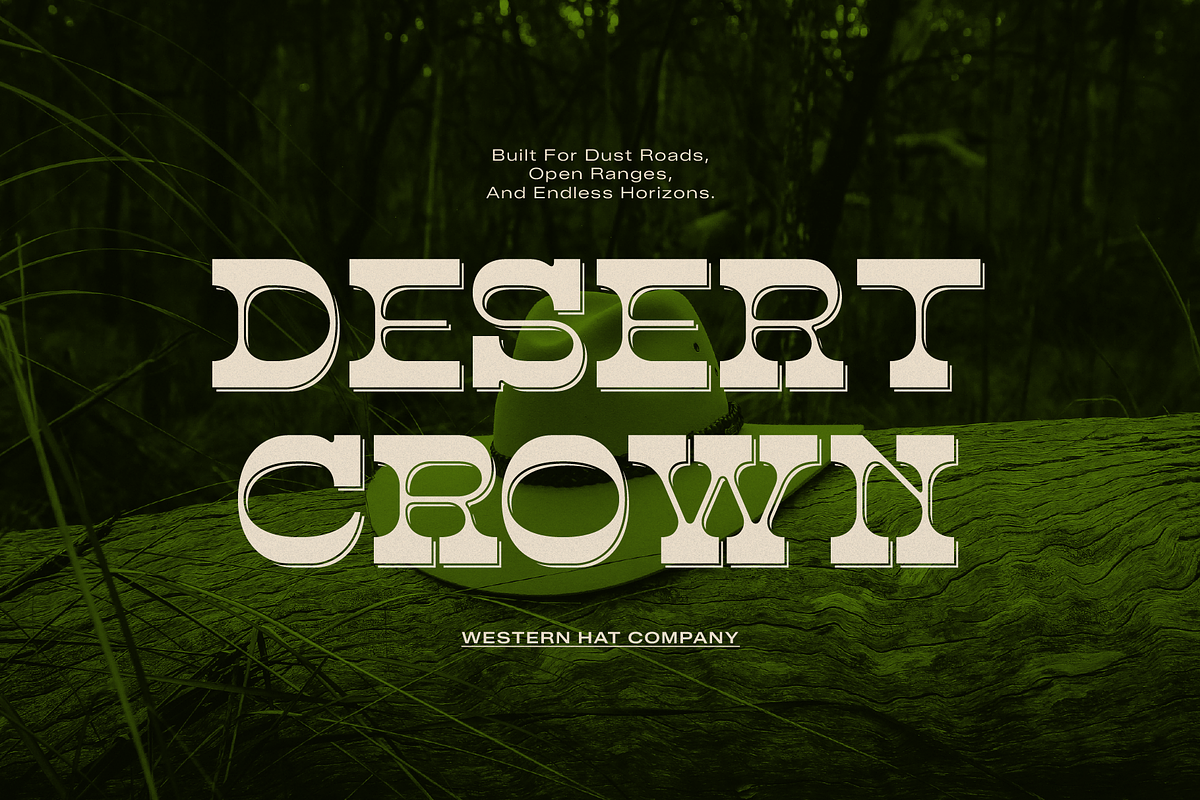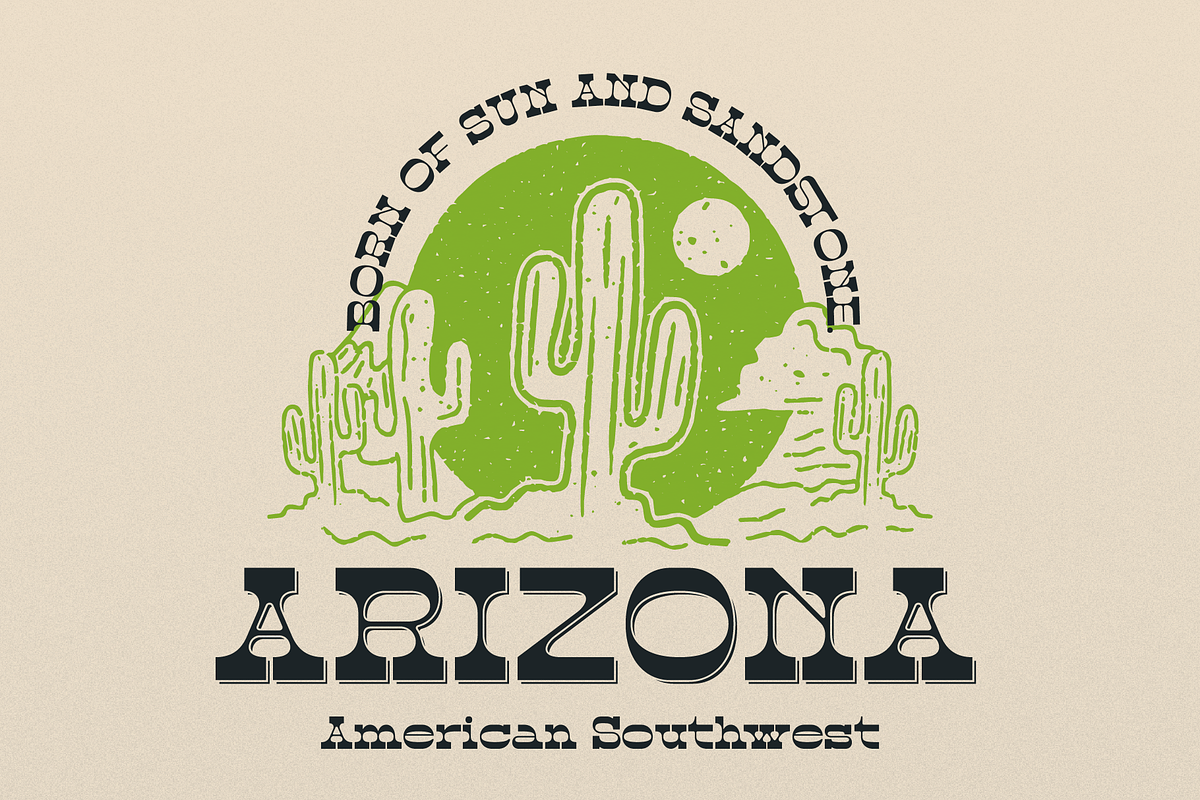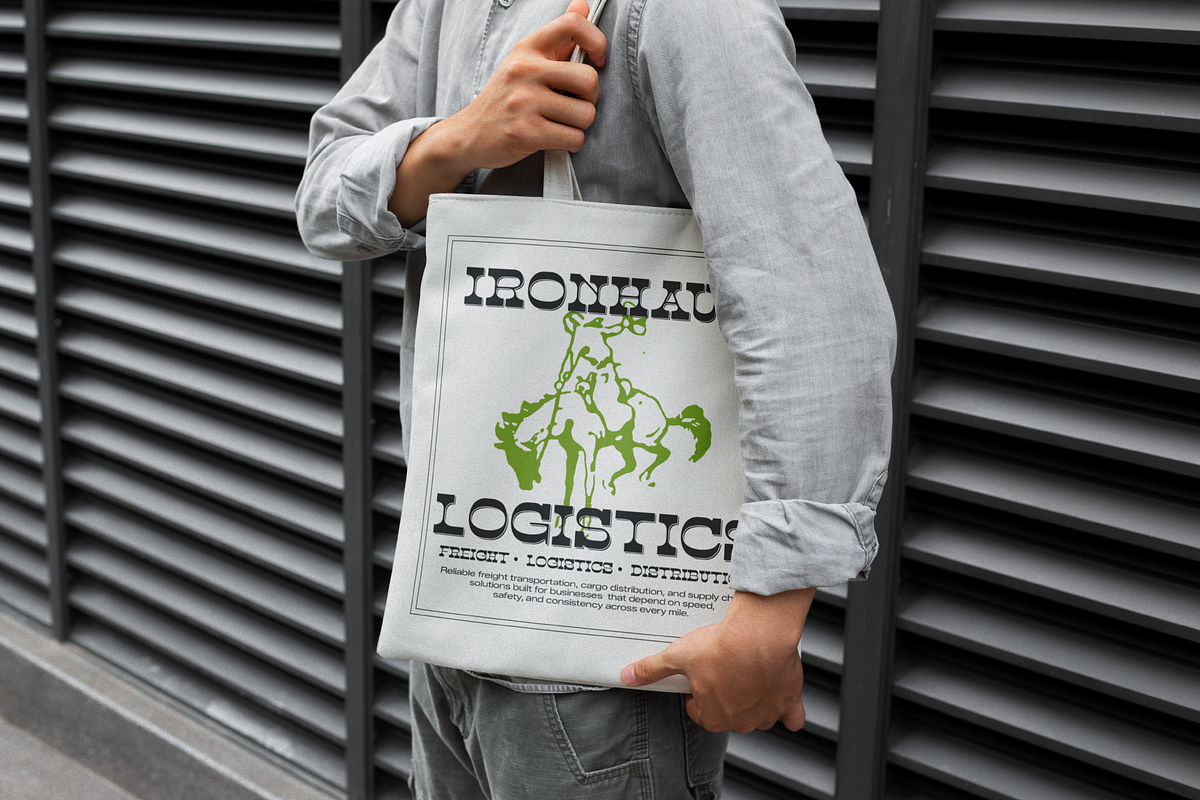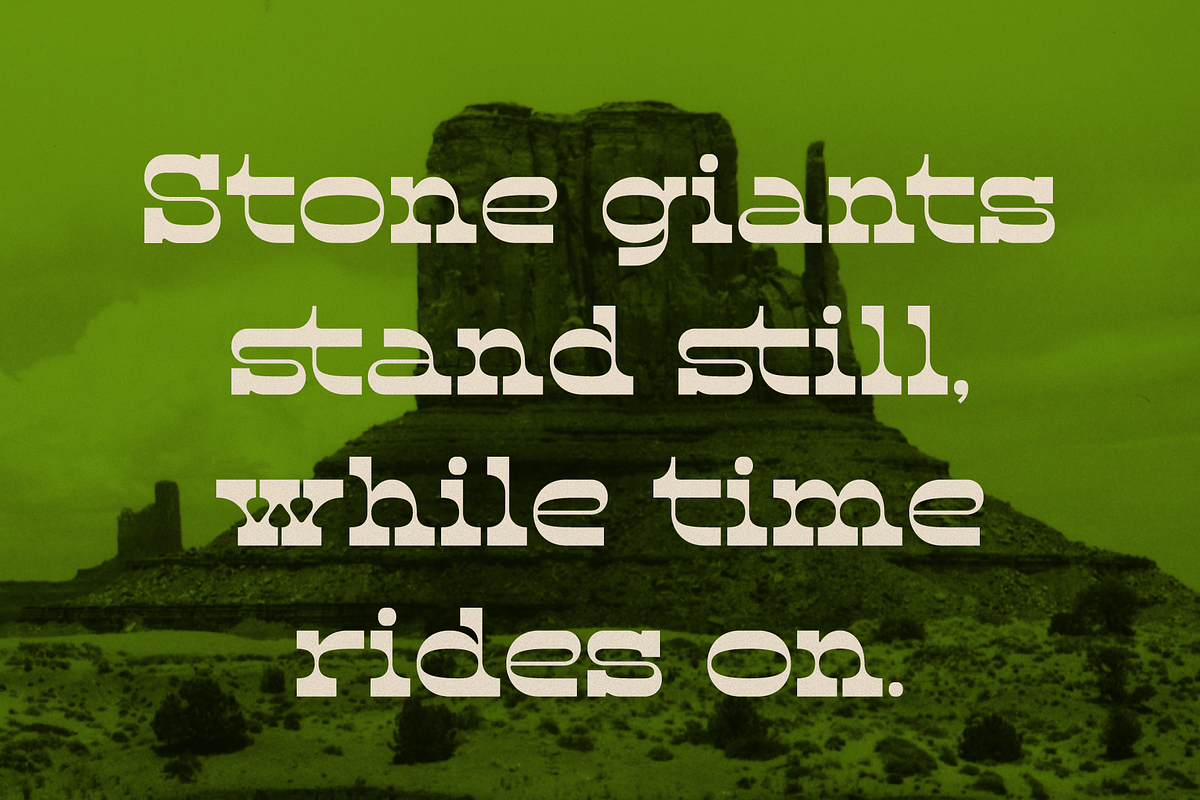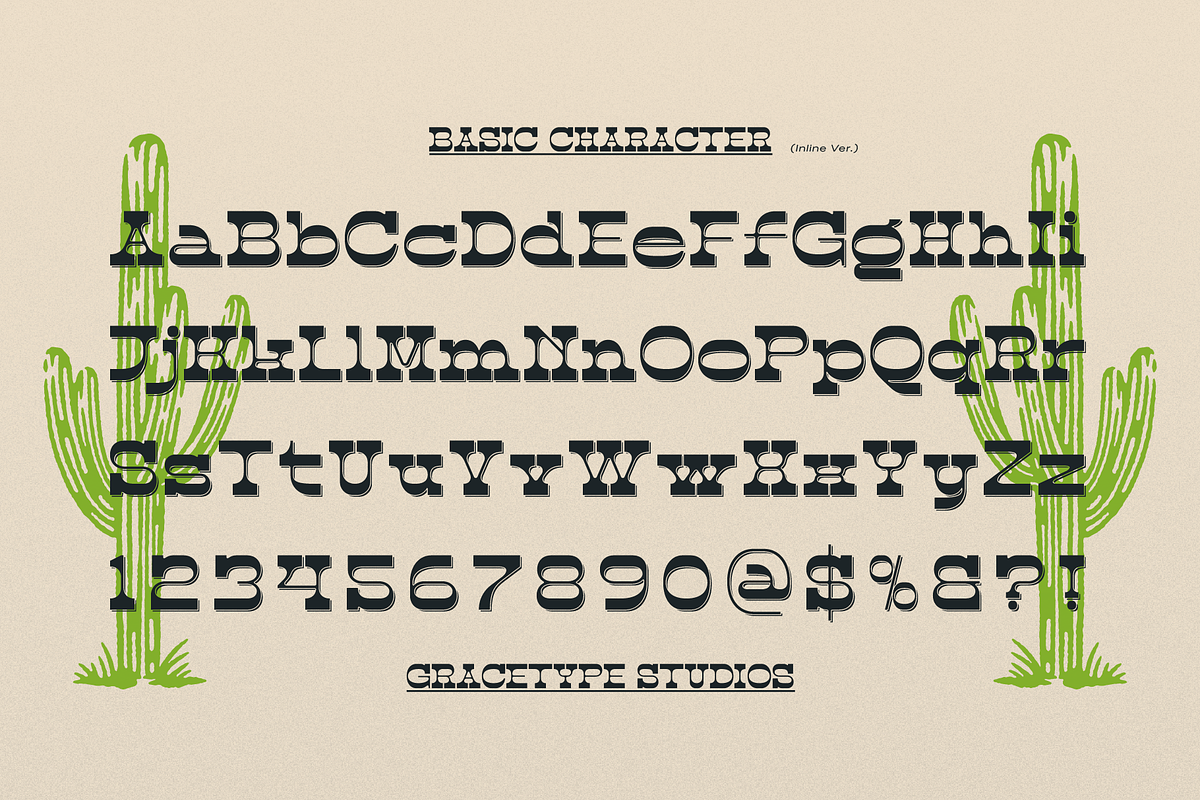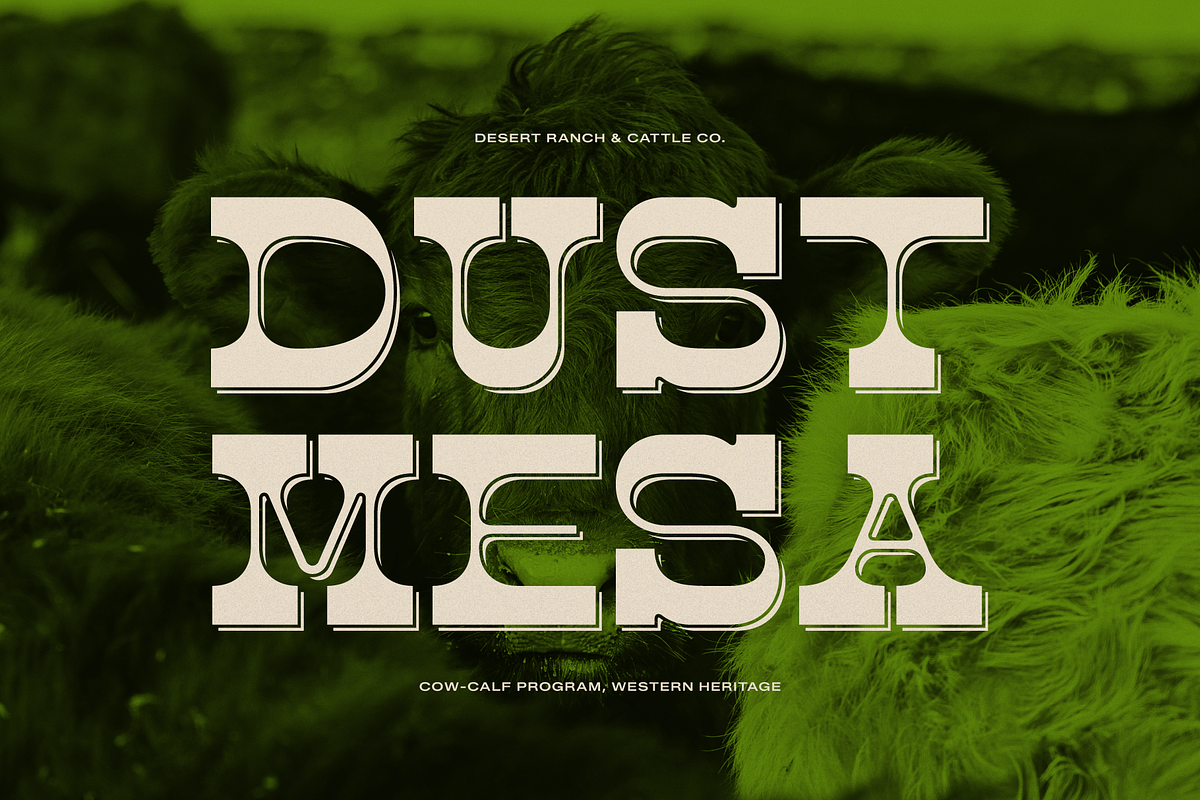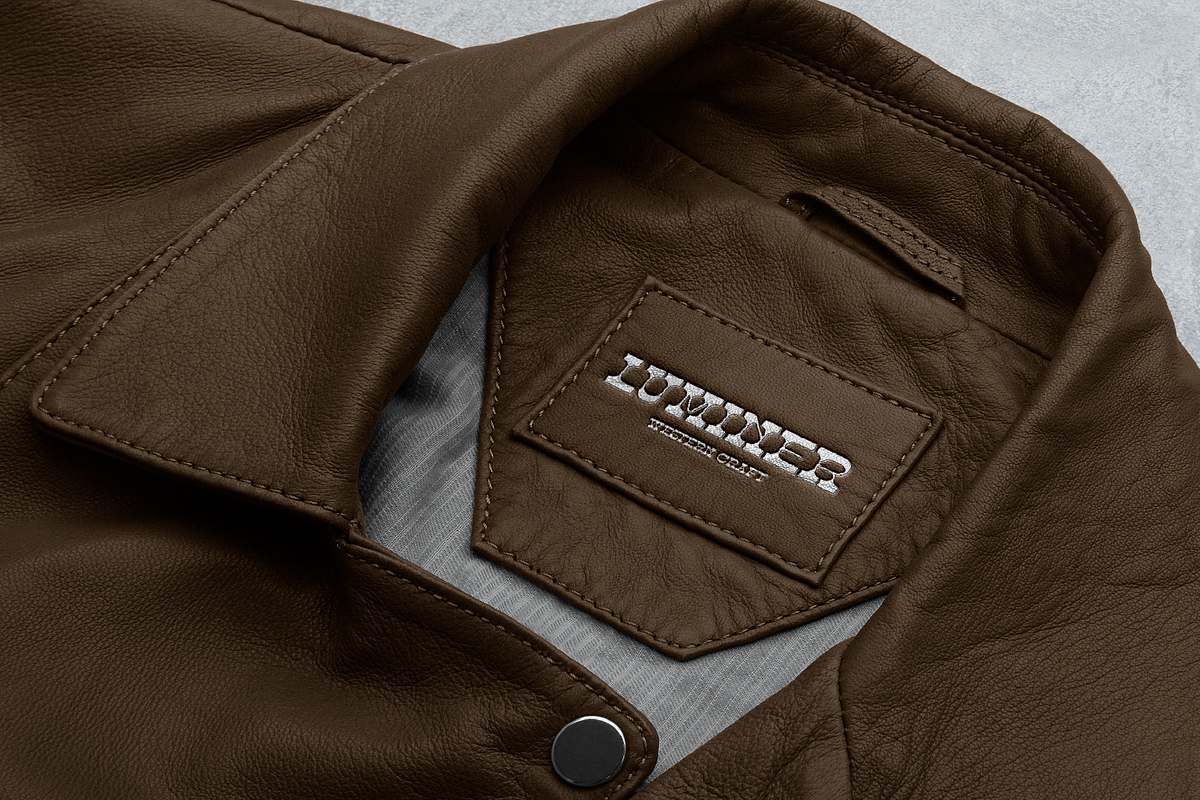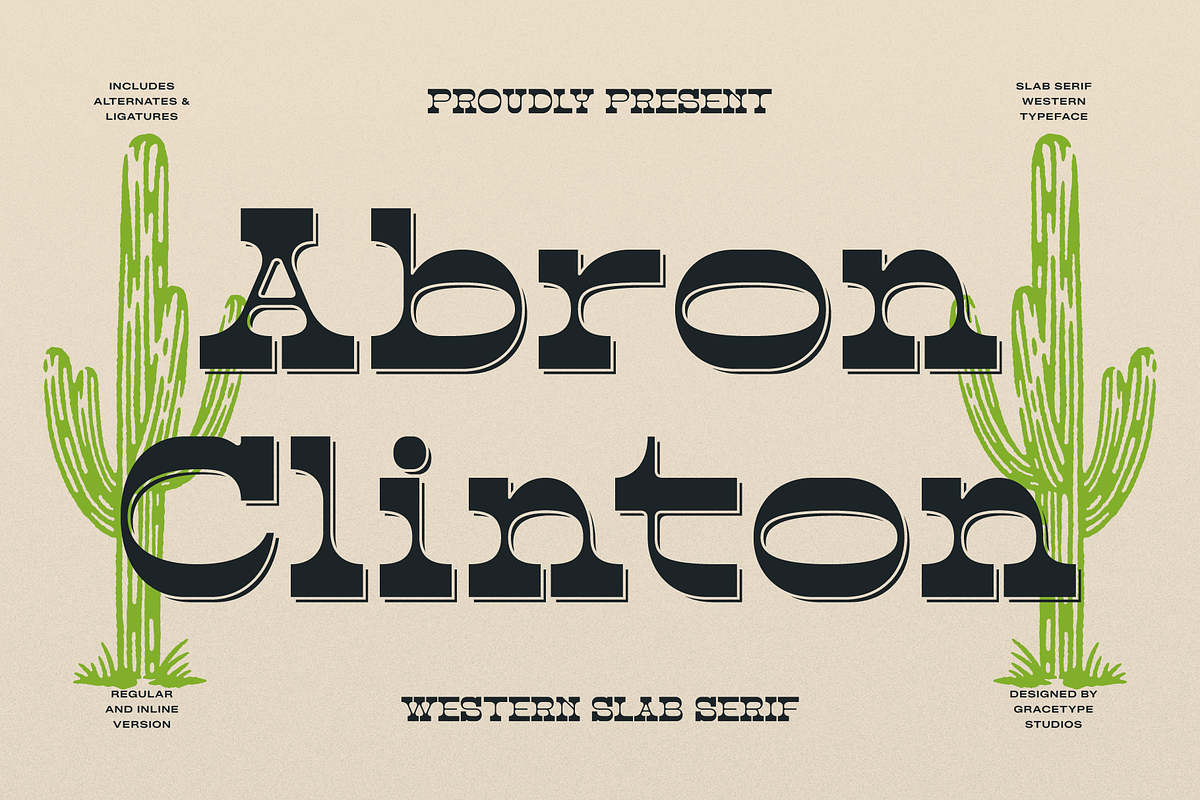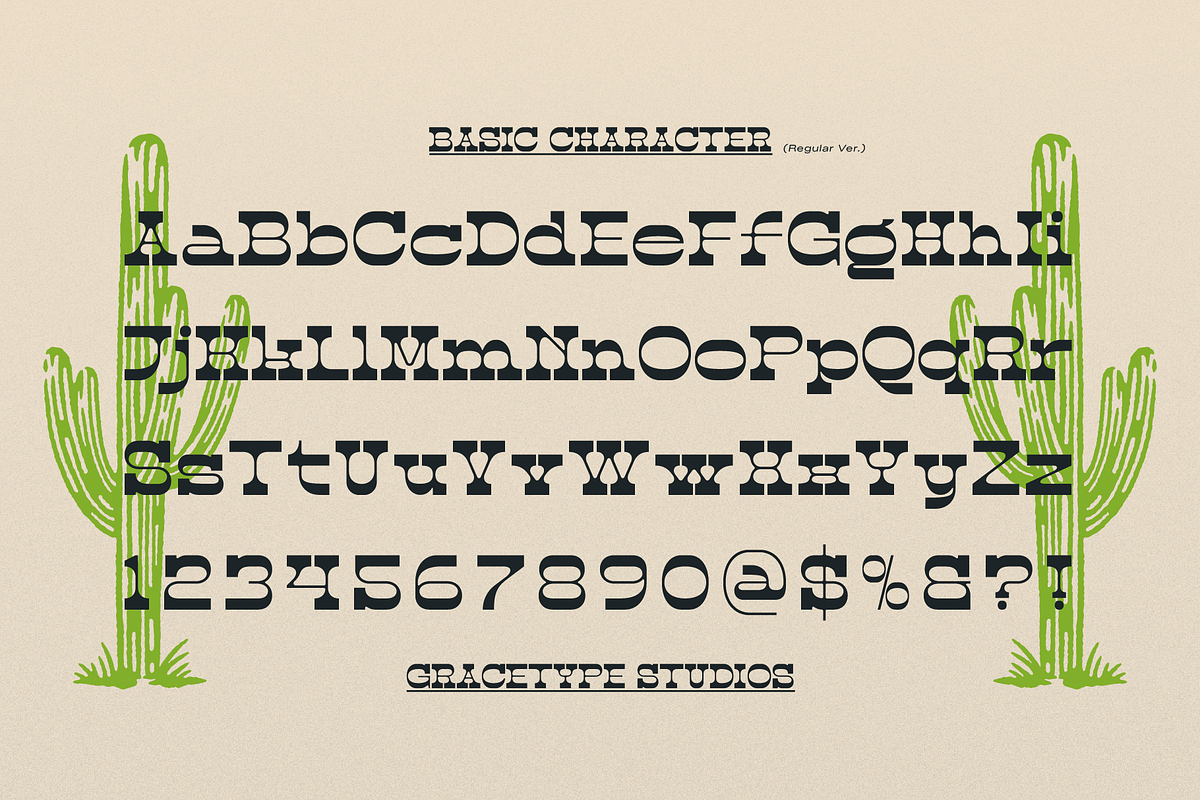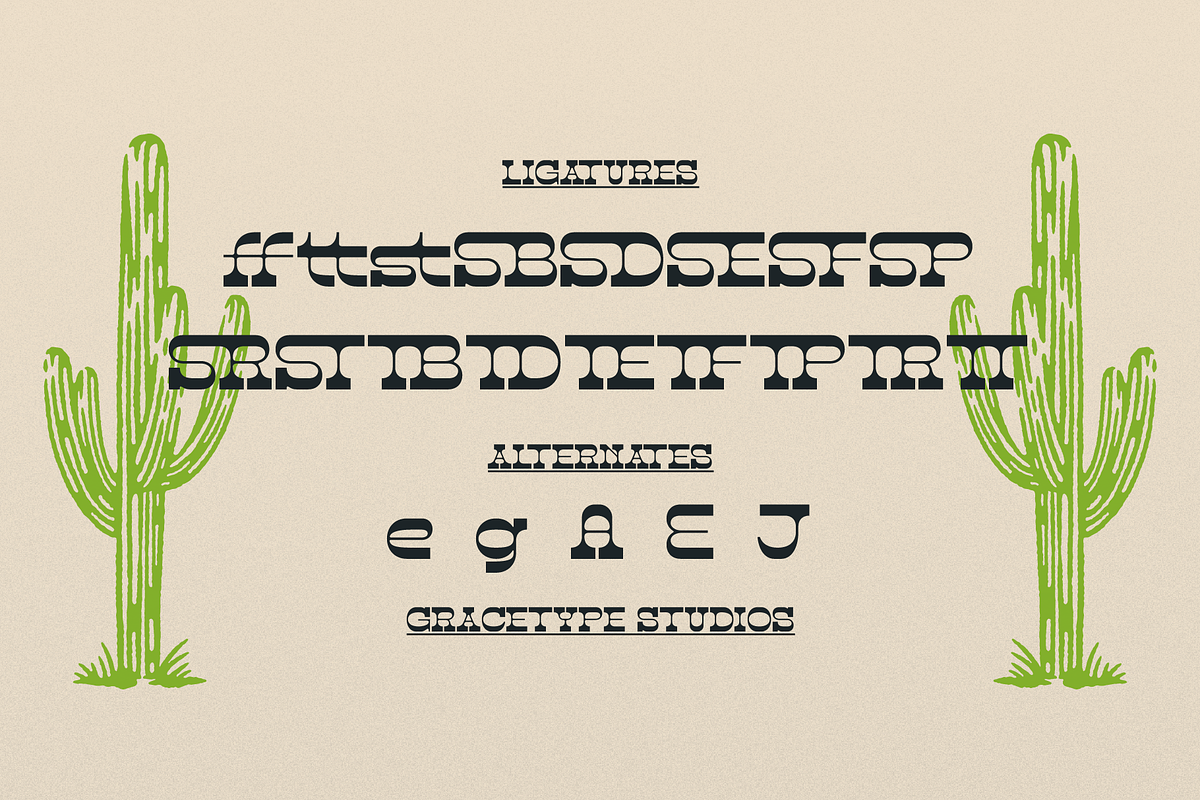
Abron Clinton | Western Slab Serif
Abron Clinton | Western Slab Serif, from Gracetypestudio, suitable for any projects such as: logos, branding projects, homeware designs, product packaging, mugs, quotes, posters, shopping bags, t-shirts, book covers, name card, invitation cards, greeting cards, label, photography, watermark, special events, and all your other lovely projects that need a Slab Serif taste.
Alternate and Ligature
Fonts include multilingual support